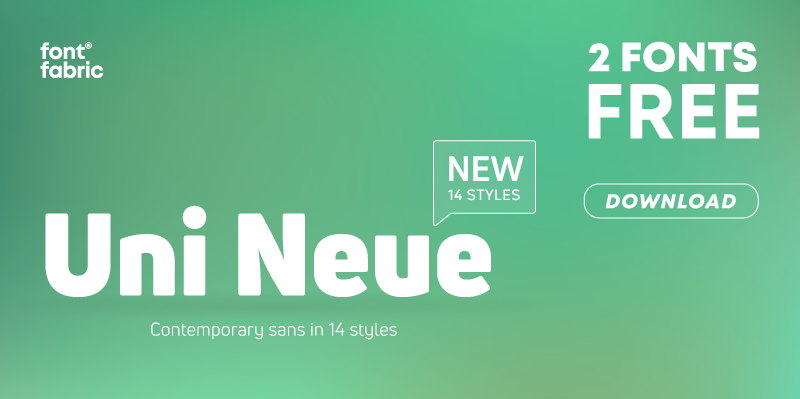
Uni Neue is the whole new redesigned version (remake) of Uni Sans � one of the most recognizable and signature font families of the Fontfabric type foundry. From major changes like proportions, widths, and thickness (weights) to the smaller details, this new family enables us to feel and understand the font at a whole new level. |